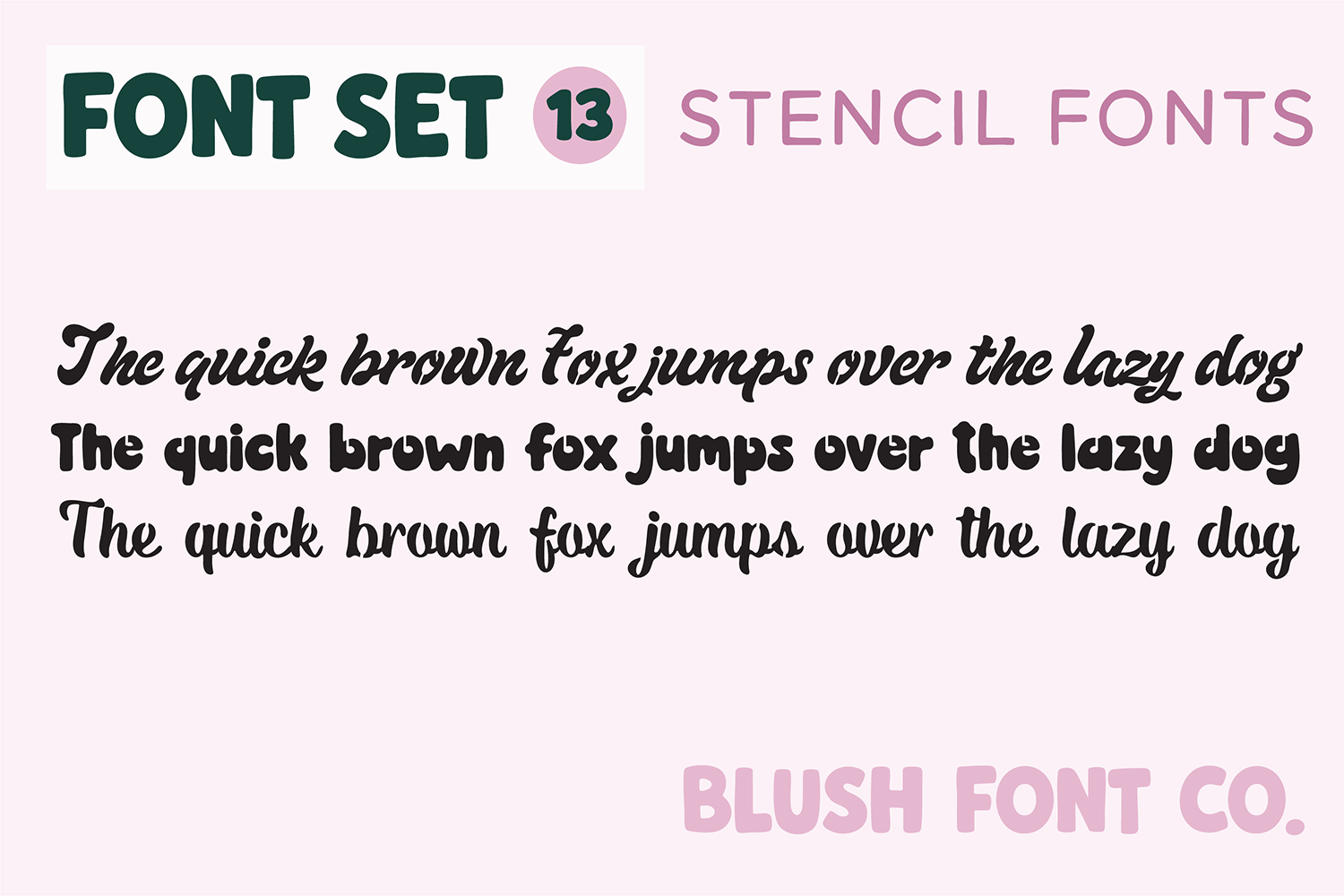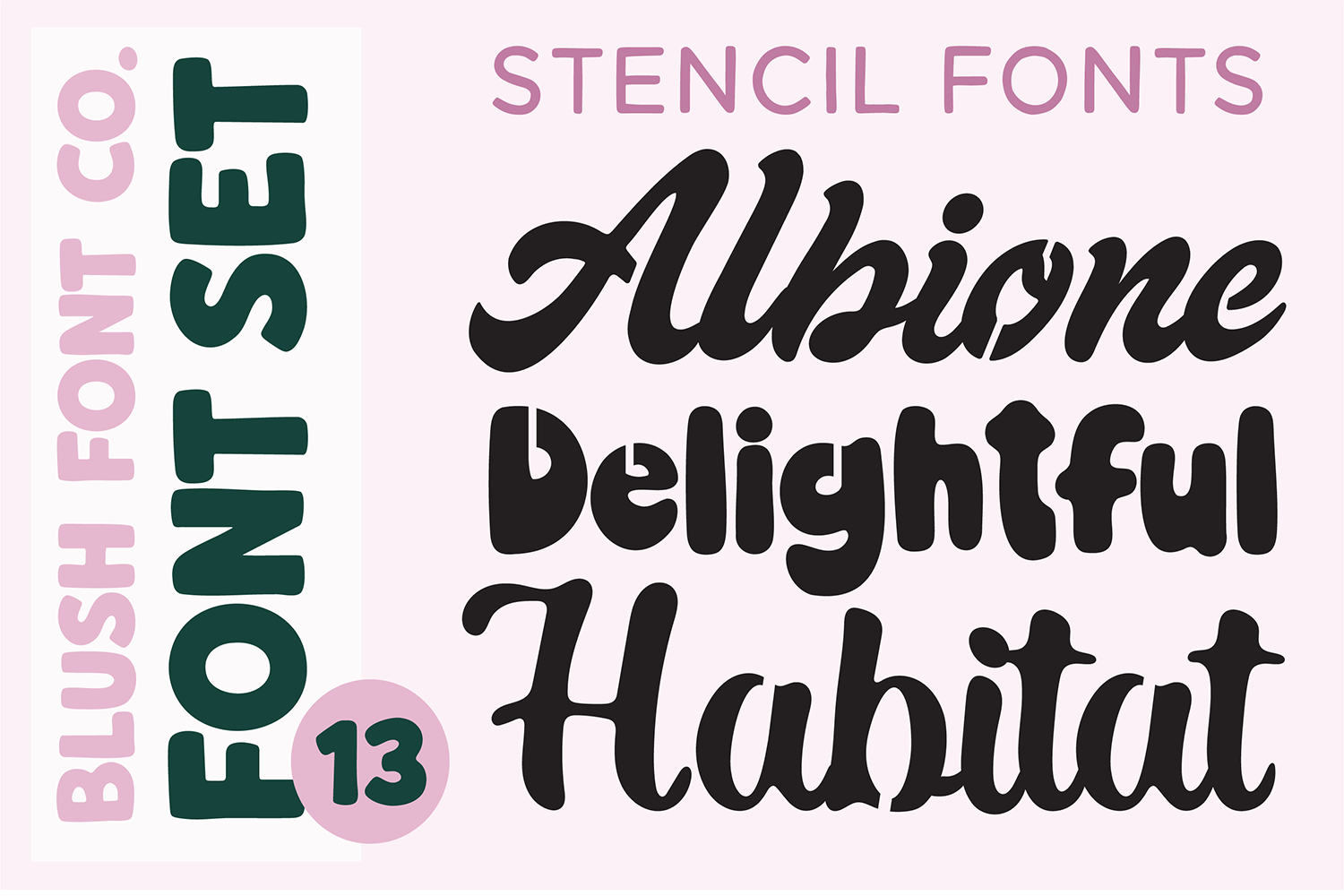
BFC FONT SET 13
Small bundle of my recent fonts! These are a mix of bold and script stencil fonts. These will work great for Cricut and other cutting projects.
Albione Stencil
Delightful Stencil
Habitat Stencil